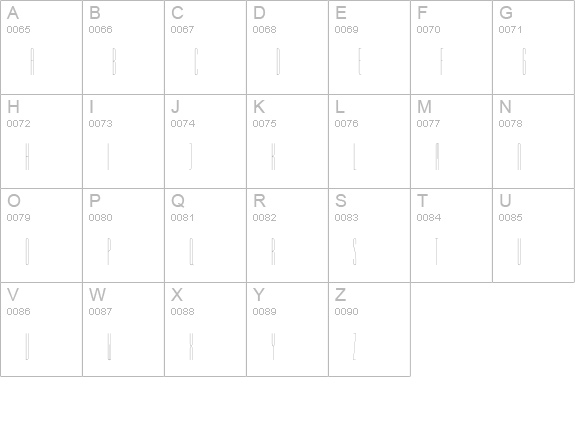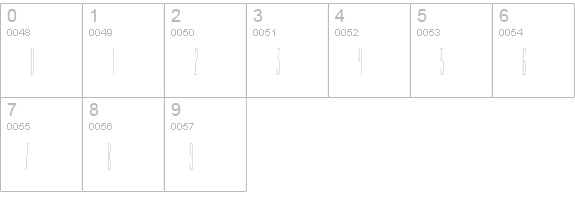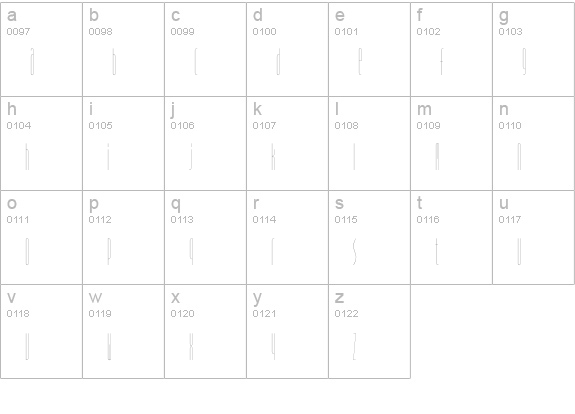
SpiritEF-Light Font Details
SpiritEF-Light is a refined, elegant variant in the SpiritEF typeface family \xE2\x80\x94 well suited to elegant body text, refined sub-headings, and luxury branding.
SpiritEF-Light is a captivating and elegant font that radiates a sense of ethereal beauty. Its delicate and flowing letterforms exude a refined charm, making it perfect for a wide range of design projects. With its light weight, SpiritEF-Light lends a touch of grace and sophistication to any composition. This font is not only visually pleasing but also incredibly versatile. Whether you're designing invitations, logos, headlines, or any other creative endeavor, SpiritEF-Light effortlessly adapts to suit your needs. Its legibility and clarity make it a go-to choice for both print and digital media, ensuring that your message is conveyed with utmost clarity. One of the most remarkable features of SpiritEF-Light is that it is freely available to download at FontsMarket.com. This means that you can effortlessly enhance your design projects without any financial burden. Its accessibility and availability make it a valuable asset for designers, students, and anyone looking to add a touch of sophistication to their creations. The meticulous attention to detail in SpiritEF-Light's design is evident in every curve and stroke. The fine lines and subtle variations in weight create an exquisite and harmonious visual rhythm. The font's airy and light nature adds a sense of openness and tranquility, evoking a feeling of serenity and calmness. In conclusion, SpiritEF-Light is a captivating and versatile font that effortlessly combines elegance with legibility. Its freely available download option at FontsMarket.com makes it a valuable asset for designers and enthusiasts alike. With SpiritEF-Light, you can elevate your design projects to new heights, adding a touch of ethereal beauty and sophistication.